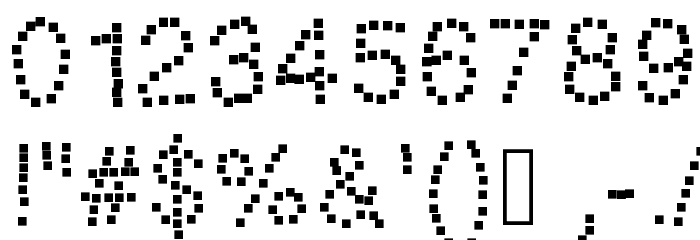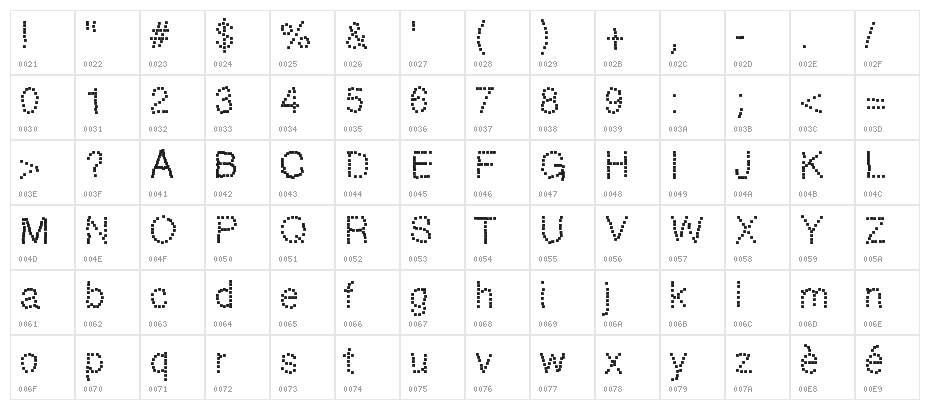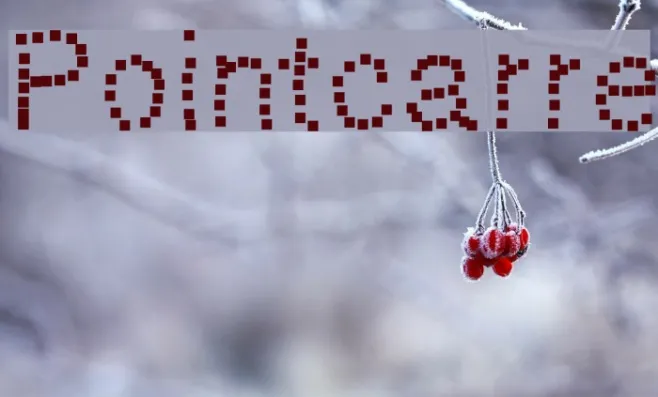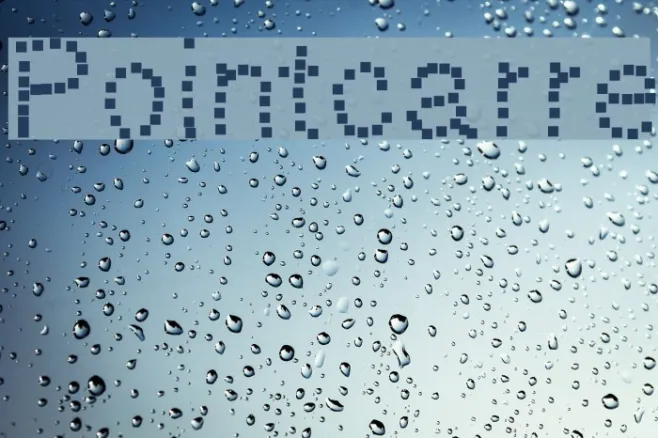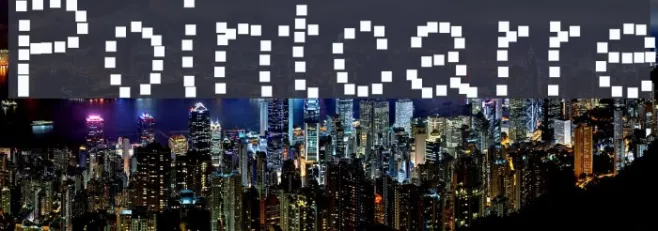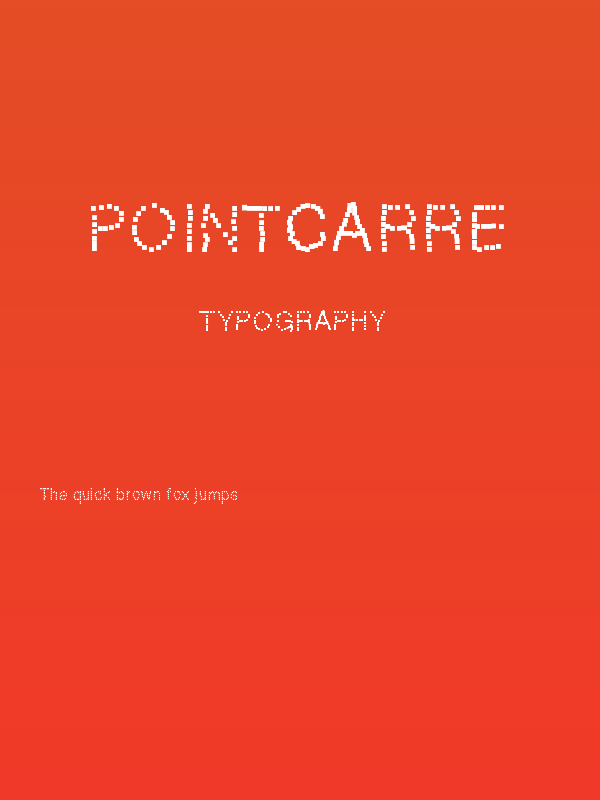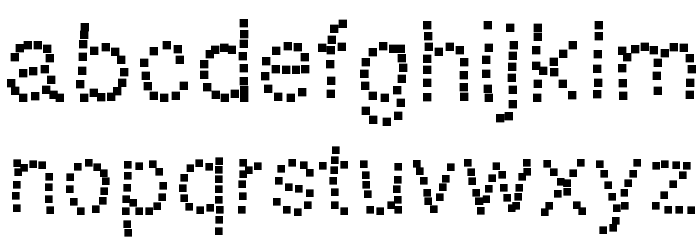
Pointcarre Font
Pointcarre Description
This font features a unique dotted design, where each character is composed of a series of small, evenly spaced dots. The style is reminiscent of digital or LED displays, giving it a modern and technological feel. The uppercase and lowercase letters maintain a consistent structure, ensuring readability while adding a distinct visual texture. Numbers and special characters follow the same dotted pattern, creating a cohesive look across all elements. The font's geometric precision and uniformity make it stand out, ideal for projects that require a futuristic or digital aesthetic.
| Use Case | Headlines, Logos, Digital displays |
| Proposed Projects | Ideal for digital displays, tech-themed designs, futuristic branding, and creative posters. |